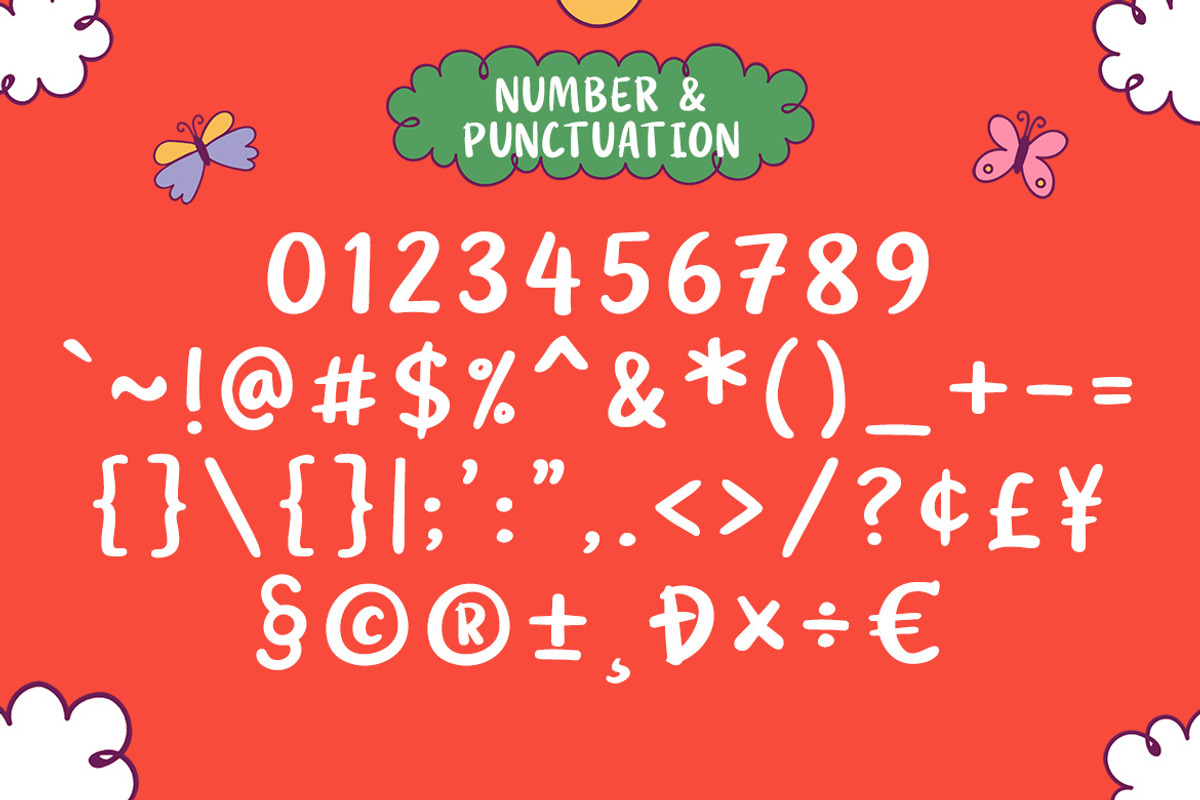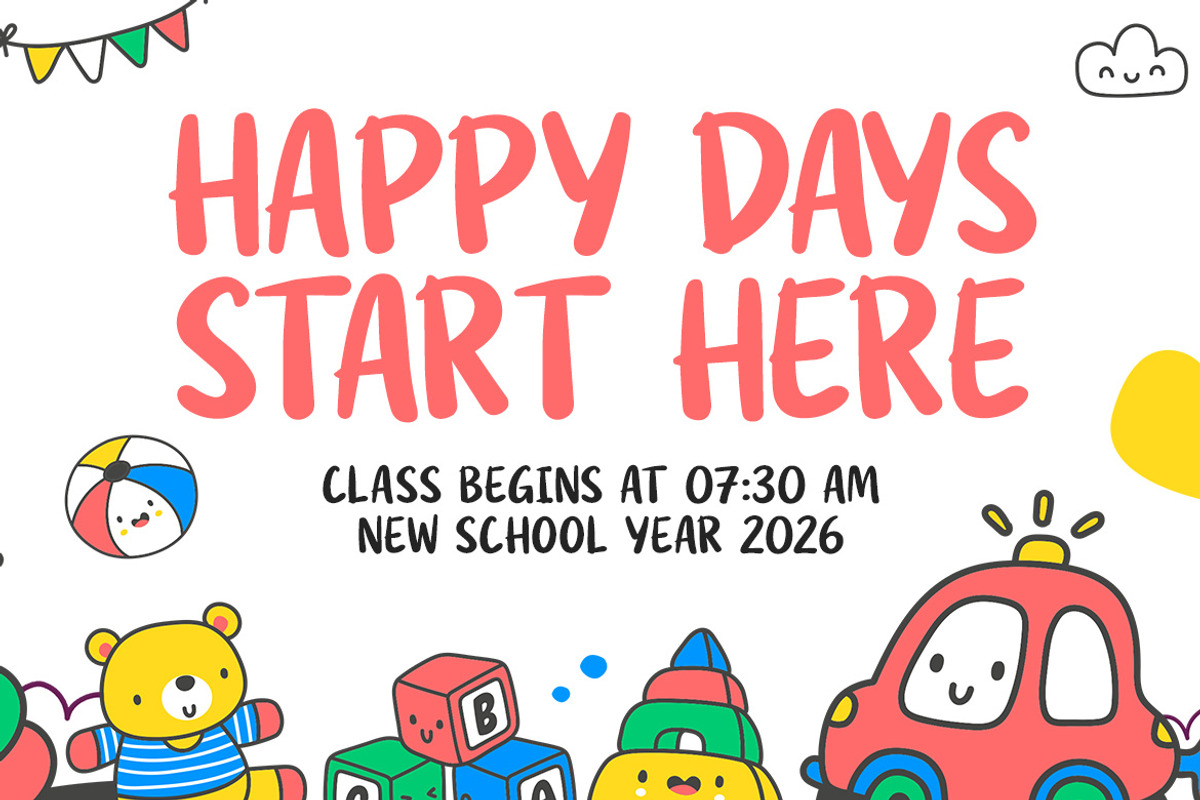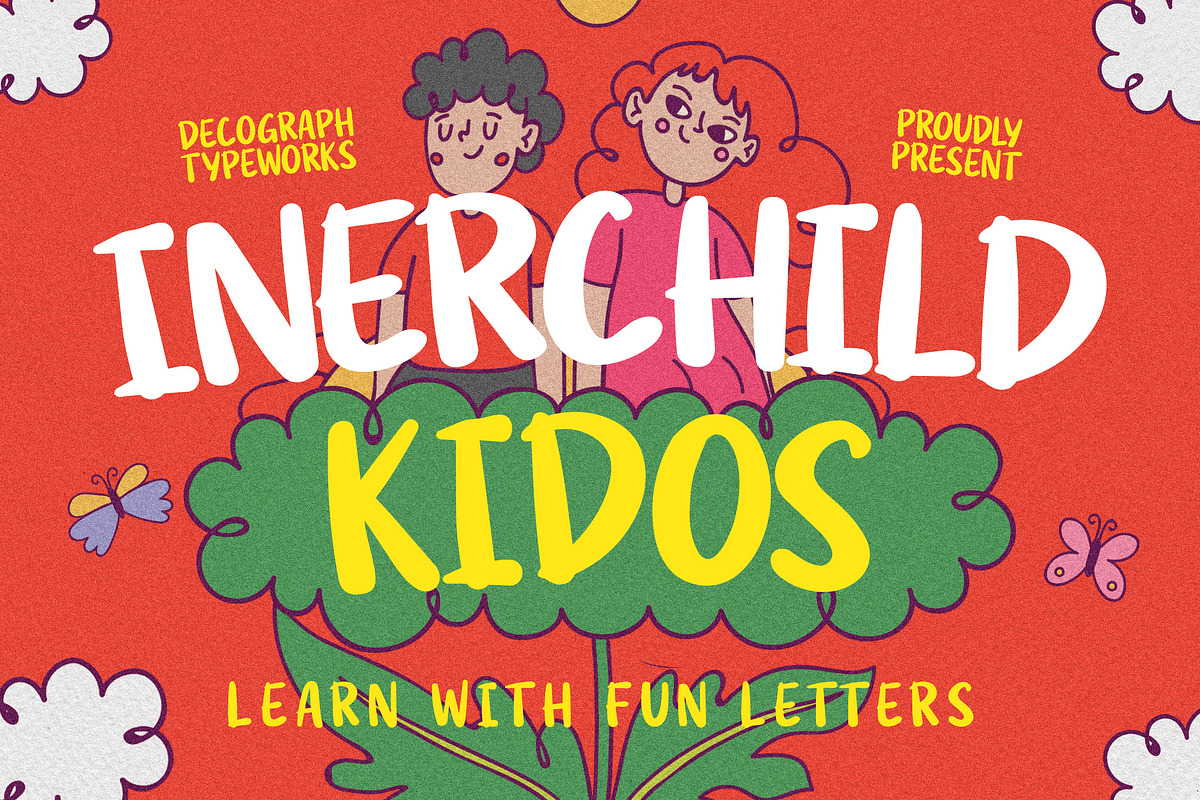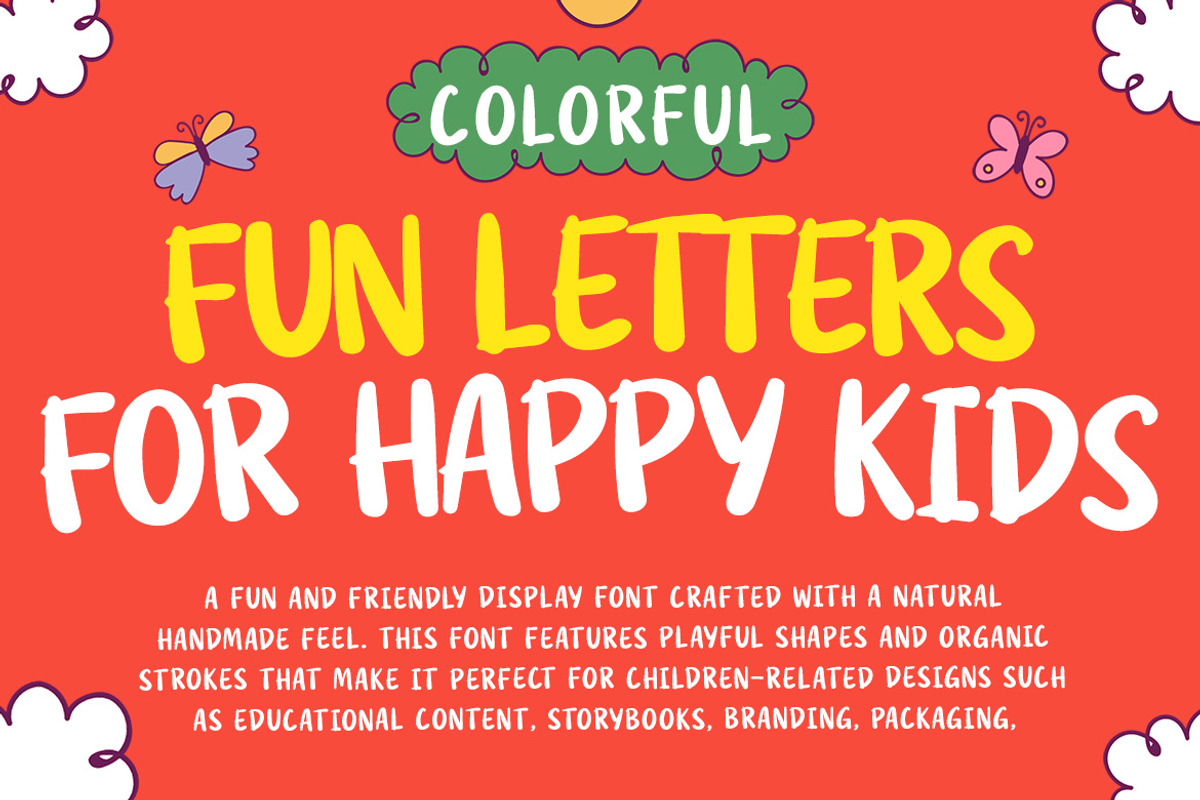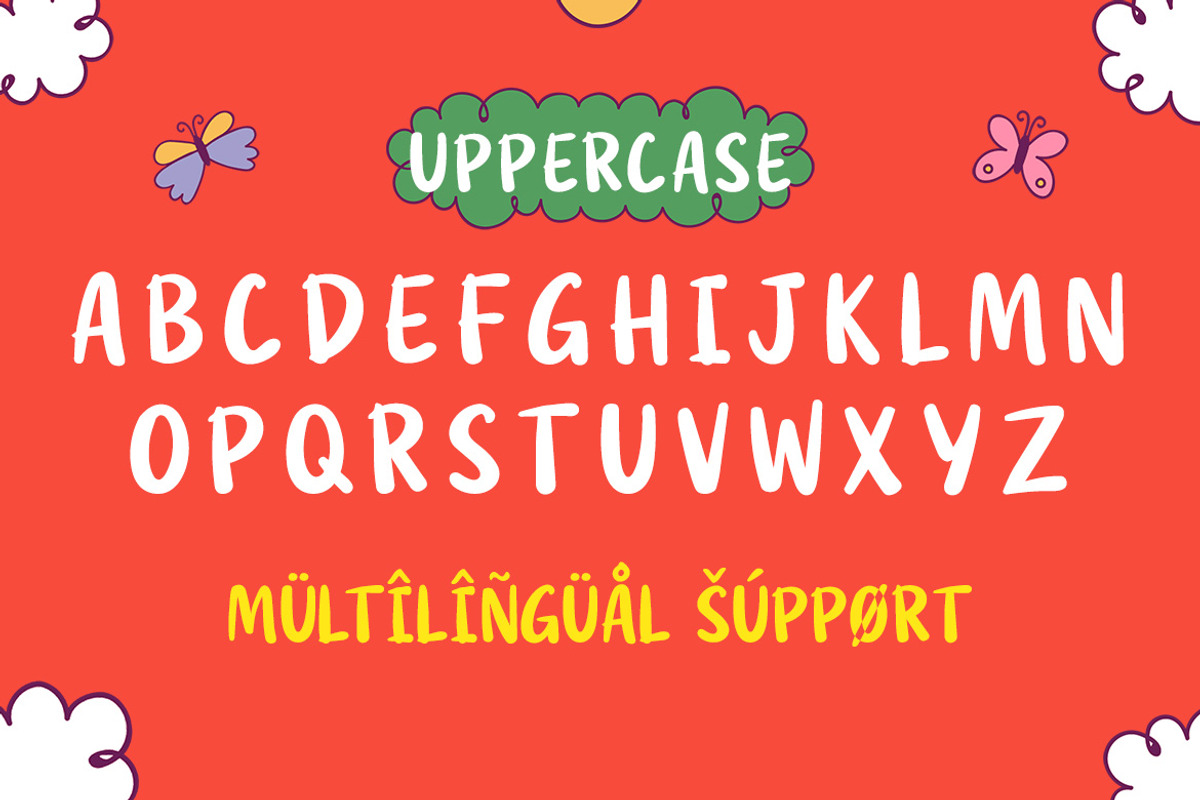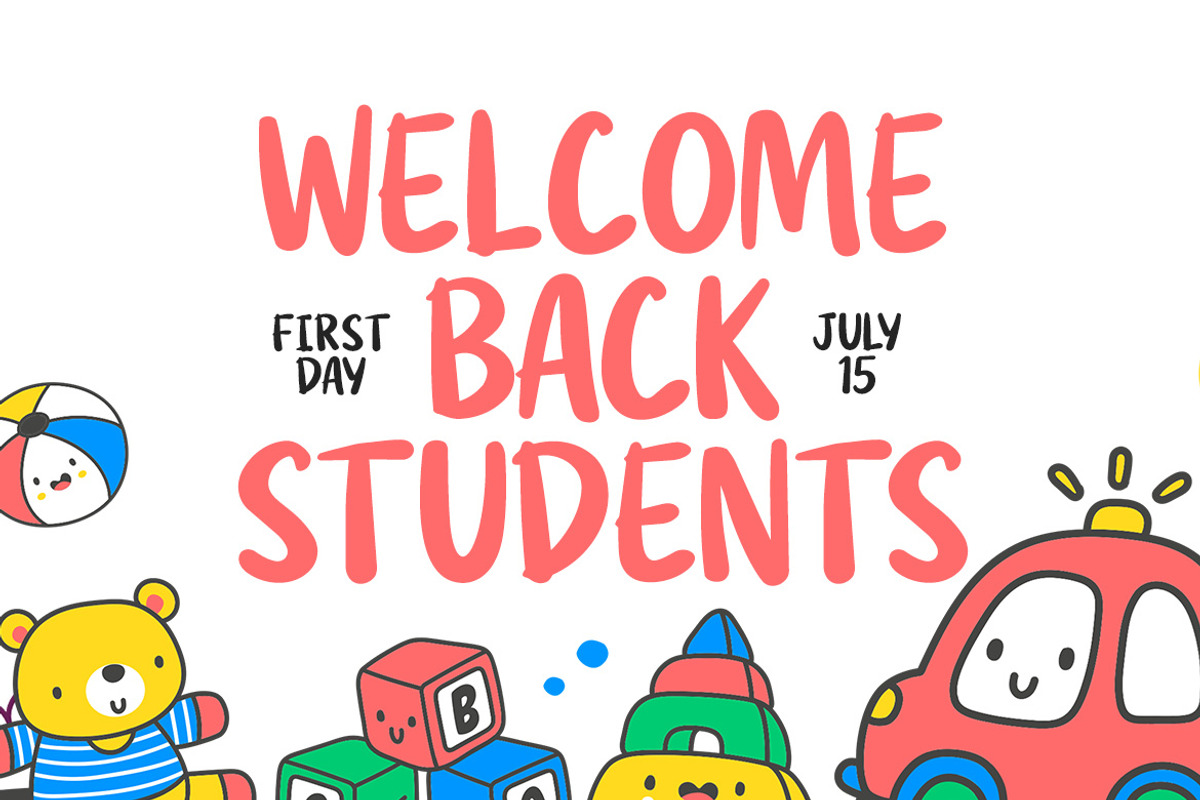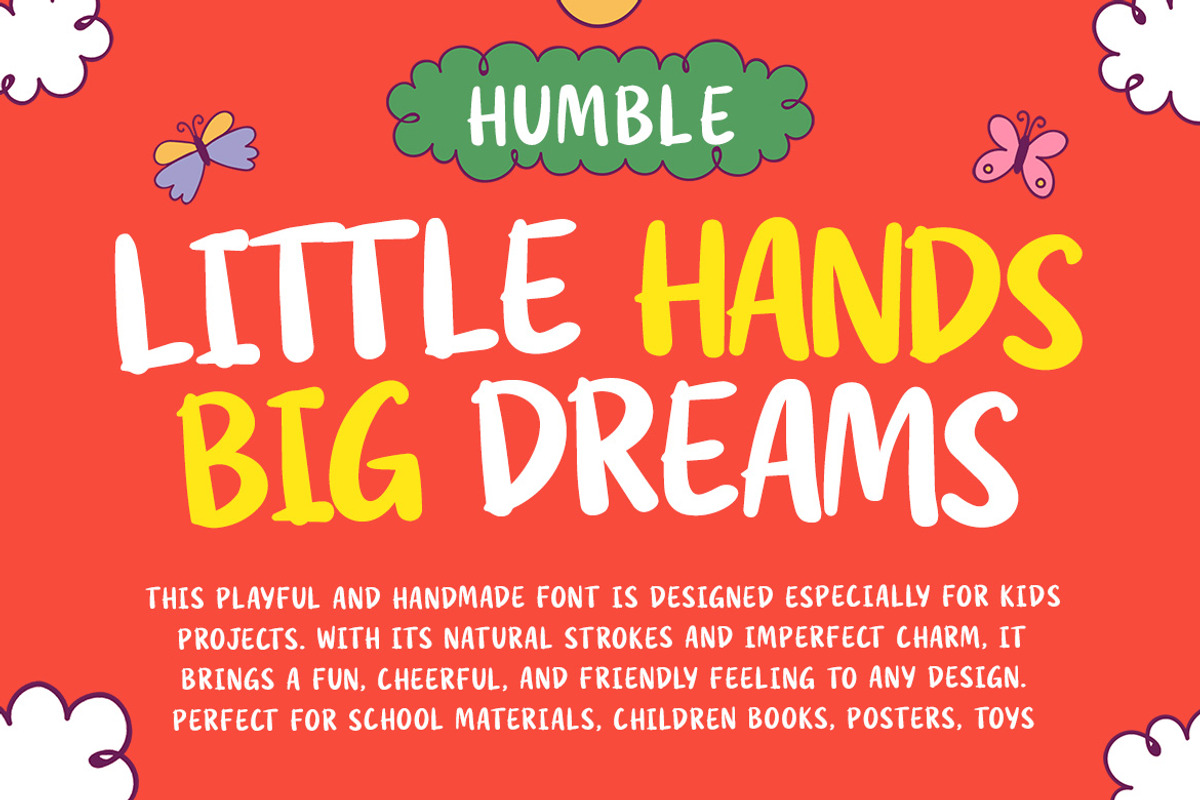
Inerchild Kidos– Playful Handwritten
Innerchild Kiddos is a joyful handwritten display font designed to capture the pure, carefree spirit of childhood with its bouncy strokes, imperfect lines, and charming doodle-like personality. Featuring a lively and expressive style that feels natural and spontaneous, this font is perfect for kids’ branding, educational materials, storybooks, toy packaging, posters, and fun social media content. Its friendly and approachable character makes every design feel warm, imaginative, and full of life, making Innerchild Kiddos the perfect choice for projects that aim to spark creativity, happiness, and playful energy.